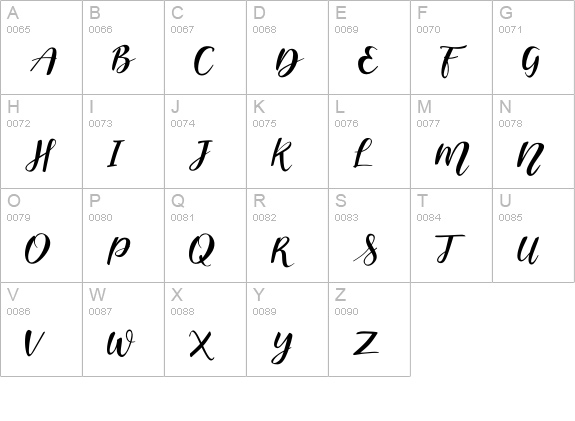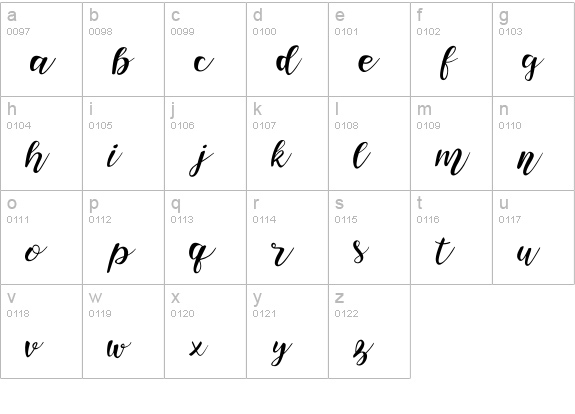
the lottus Font Details
the lottus is a free for personal use font in the Script > Handwritten category, designed by xdCreative. It has been downloaded 439 times and is available for Windows, Mac and Linux.
Lottus Font is a stunning and elegant typeface that brings a touch of sophistication to any design project. With its sleek lines and modern aesthetic, Lottus Font is perfect for creating eye-catching logos, branding materials, invitations, and more. This versatile font exudes a sense of luxury and style, making it ideal for both print and digital applications.